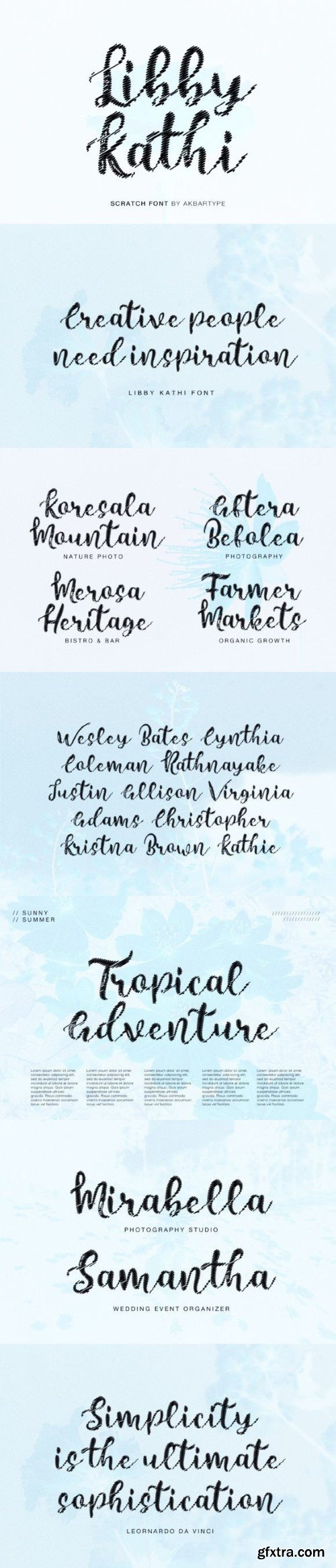
拉比·卡希字体
Libby Kathi is natural style font makes it incredibly fitting to a large pool of designs. A scratch font that comes with fun and modern handwritten font.